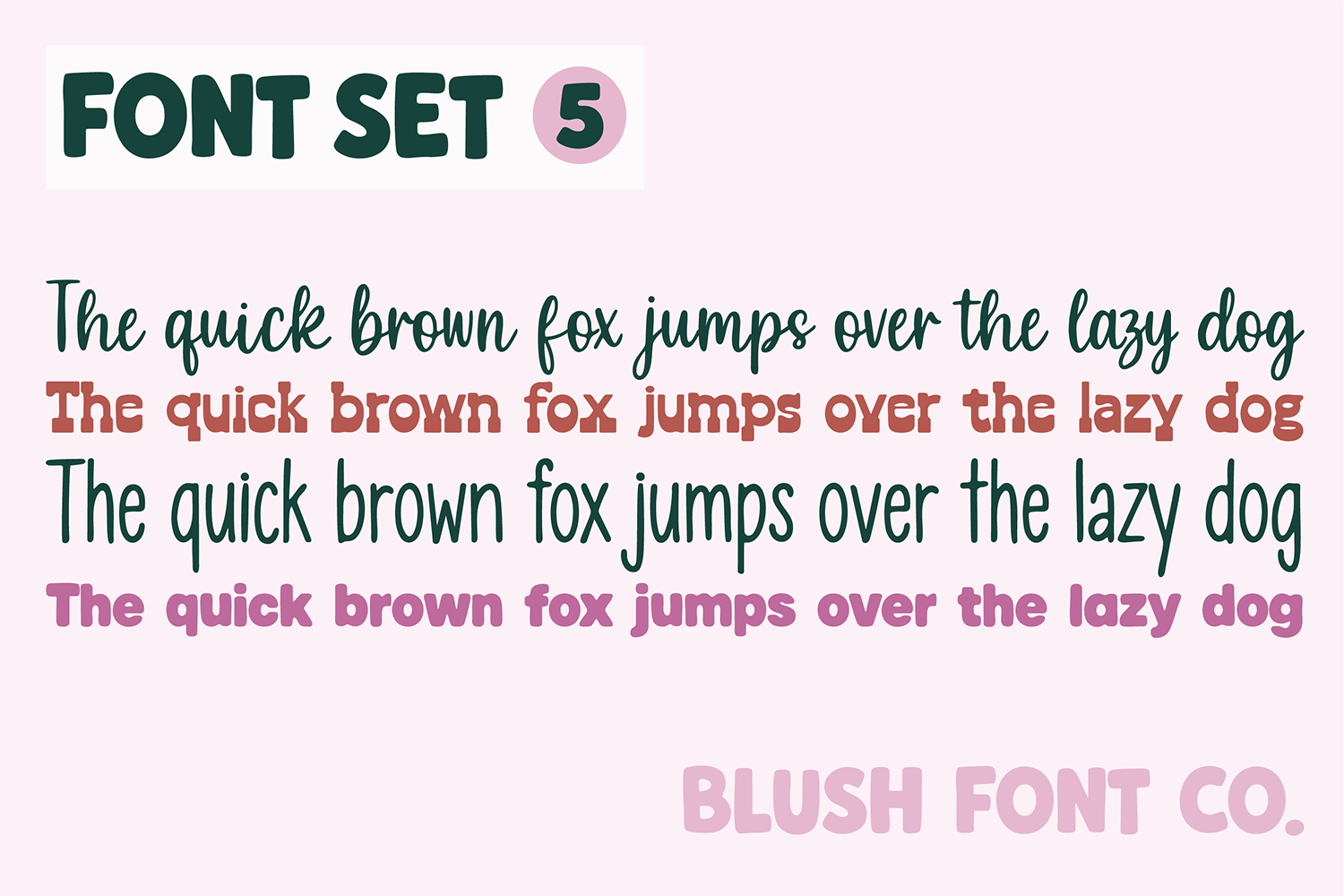
BFC FONT SET 5
Small bundle of my recent fonts! These are cute handwritten, western, and bold fonts. These will work perfect for Cricut projects.
Camila Bold Sans
Daydream Script
Cactus Bloom Western Rodeo Font
Junipera Tall Handwriting Planner Font